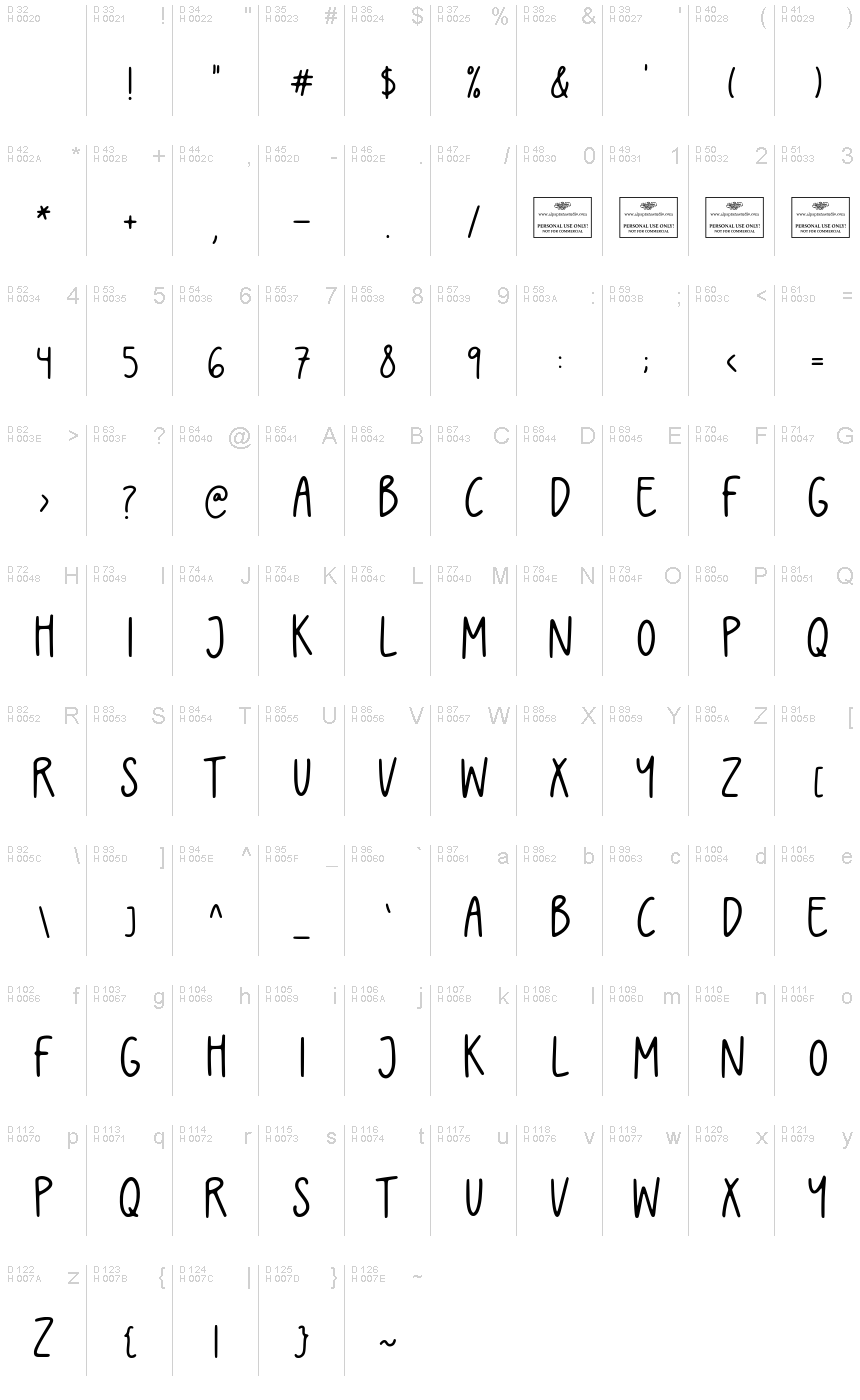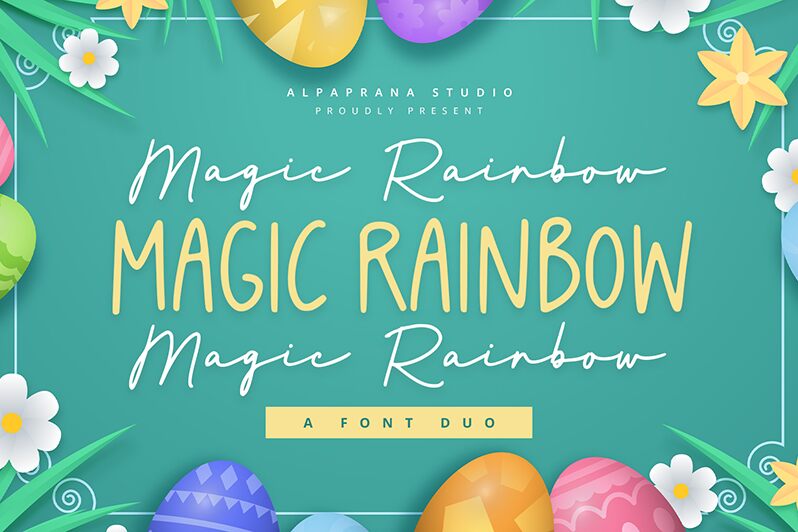
Magic Rainbow
Magic Rainbow font by Alpaprana Studio is a free font written using pen and paper with care and attention to detail. The writing is kept as close as possible to its handwritten form with rounded edges, irregular spacing, uneven letter height, and other imperfections that we adore about handwriting. Magic Rainbow presents an informal style in a playful and casual mood that further reflects the artist’s whimsical imagination.
Magic Rainbow falls within the typography category of decorative handwritten fonts. An unusual style like this one comes handy to introduce a touch of few words in titles, logos, package designs, branding projects, accessories design ideas, apps development concepts…